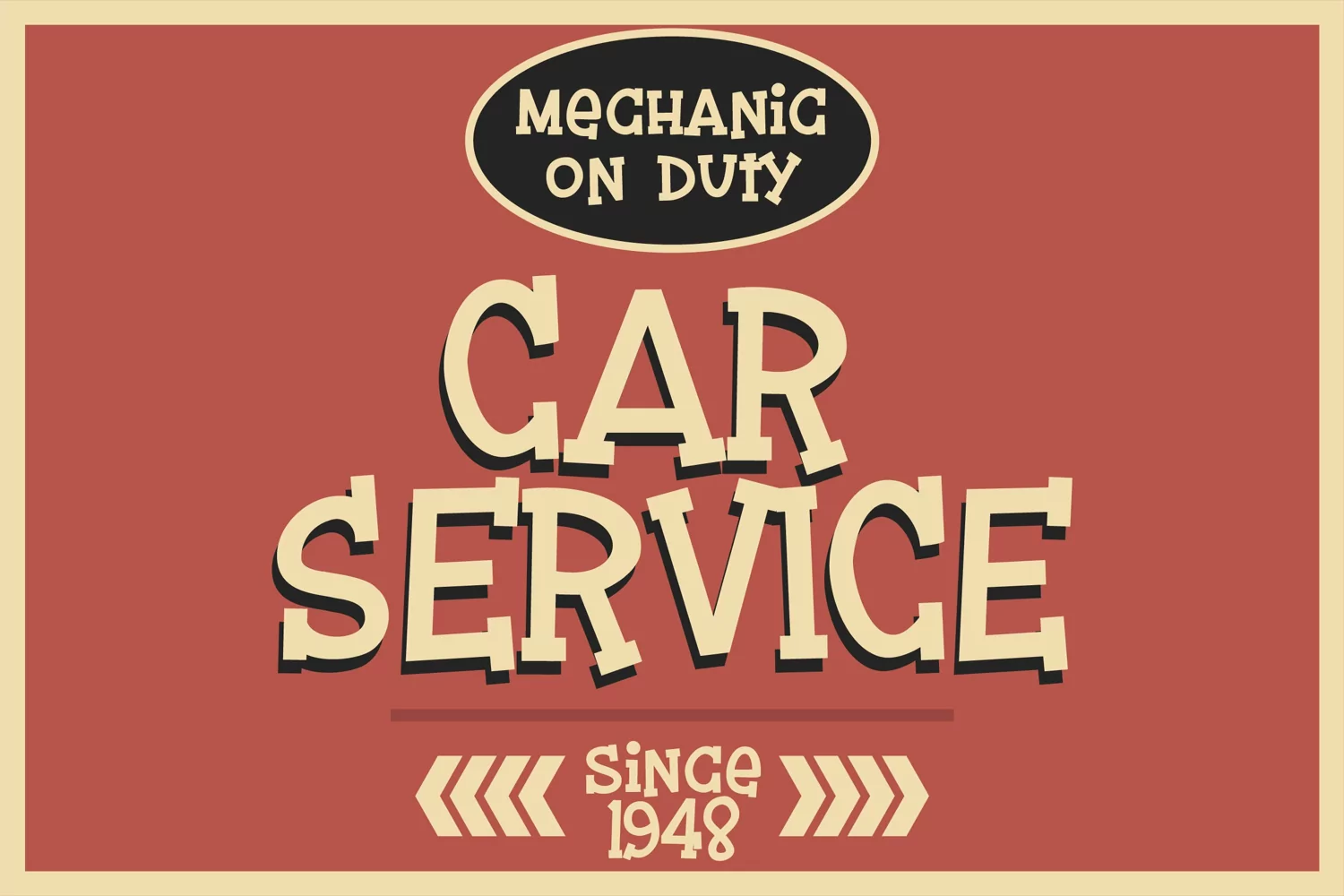
Jalopy is a quirky, fun and friendly serif font. Whether you are using it for cartoon-related designs, children games, quotes, titles, brand names, book covers, posters, or just any creation that requires a touch of joy, this font is a great choice. Includes regular and bold.